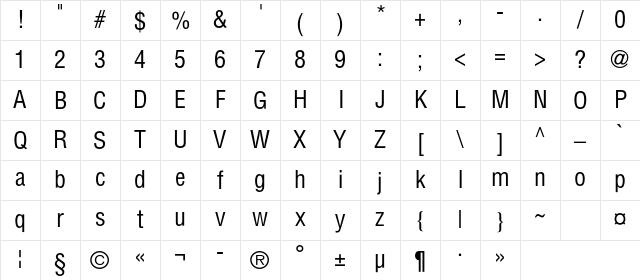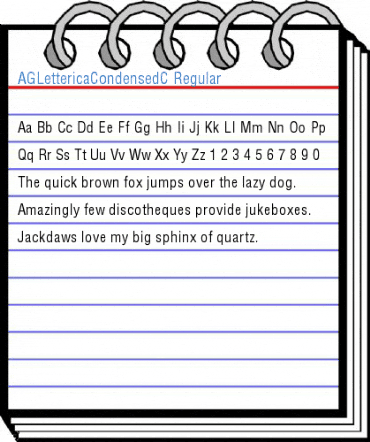
AGLettericaCondensedC is a composed and adaptable typeface that performs quietly and consistently across a wide range of design contexts. Its narrow stance lets it pack a punch even in space-constrained designs.